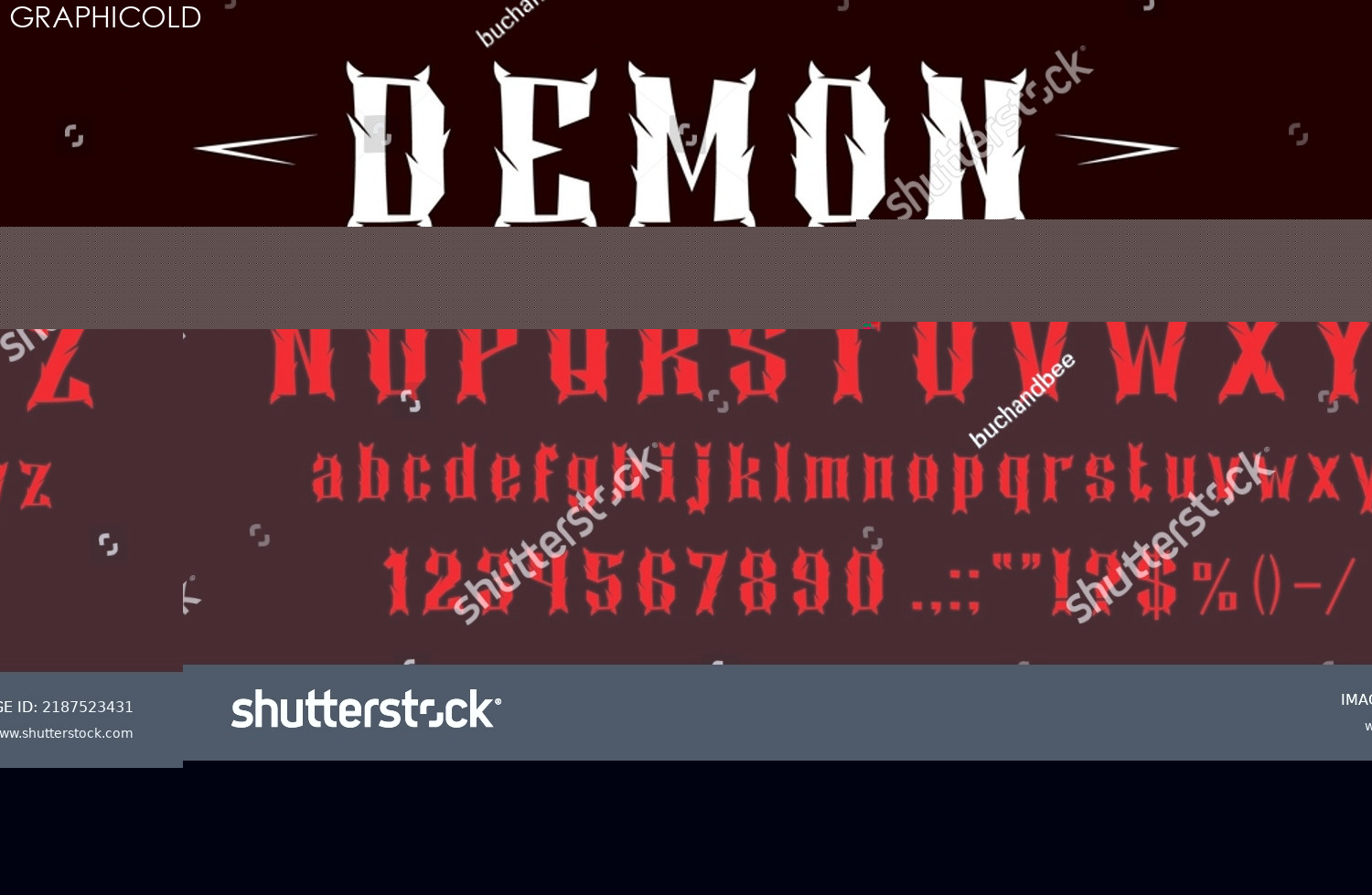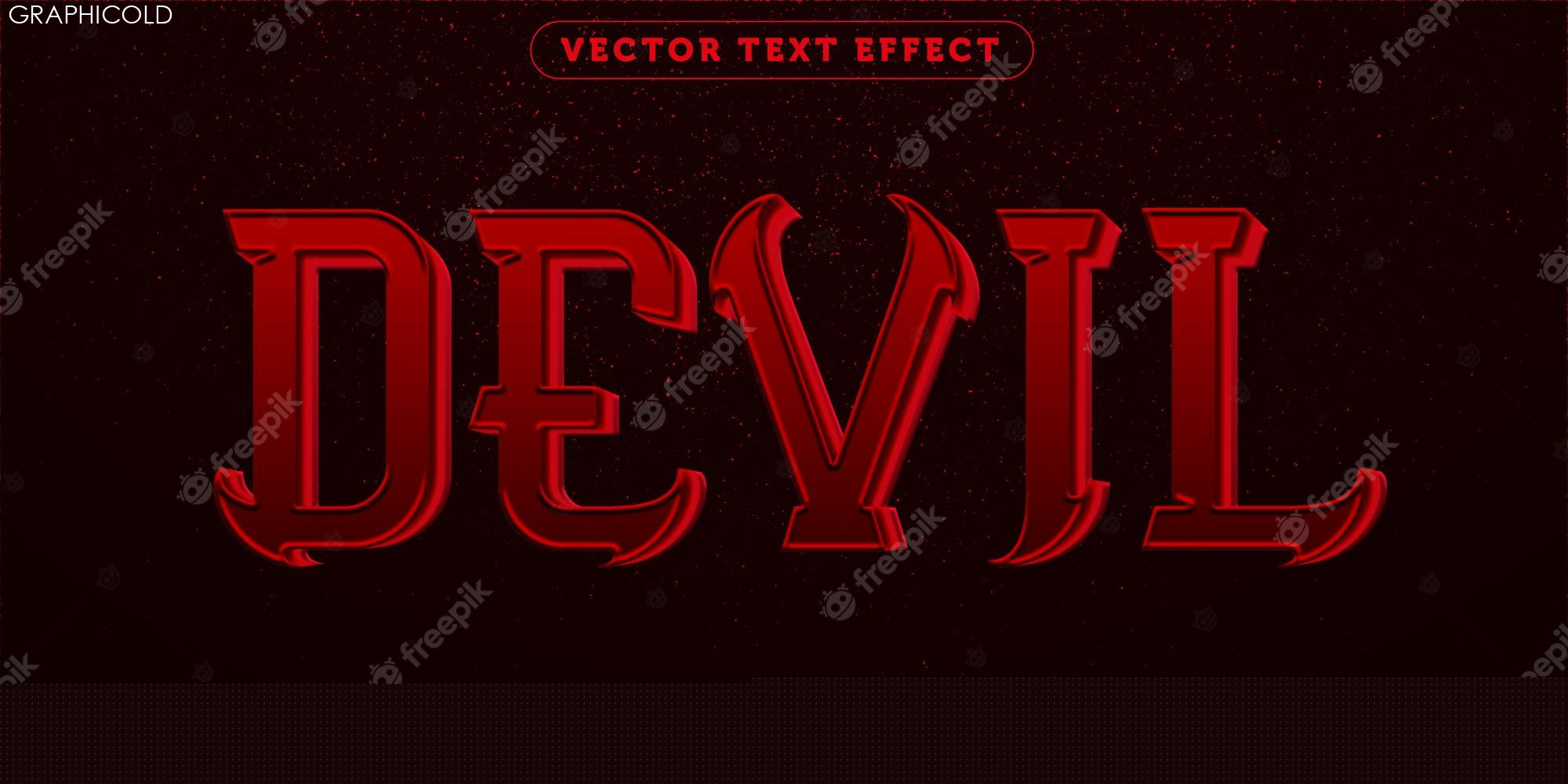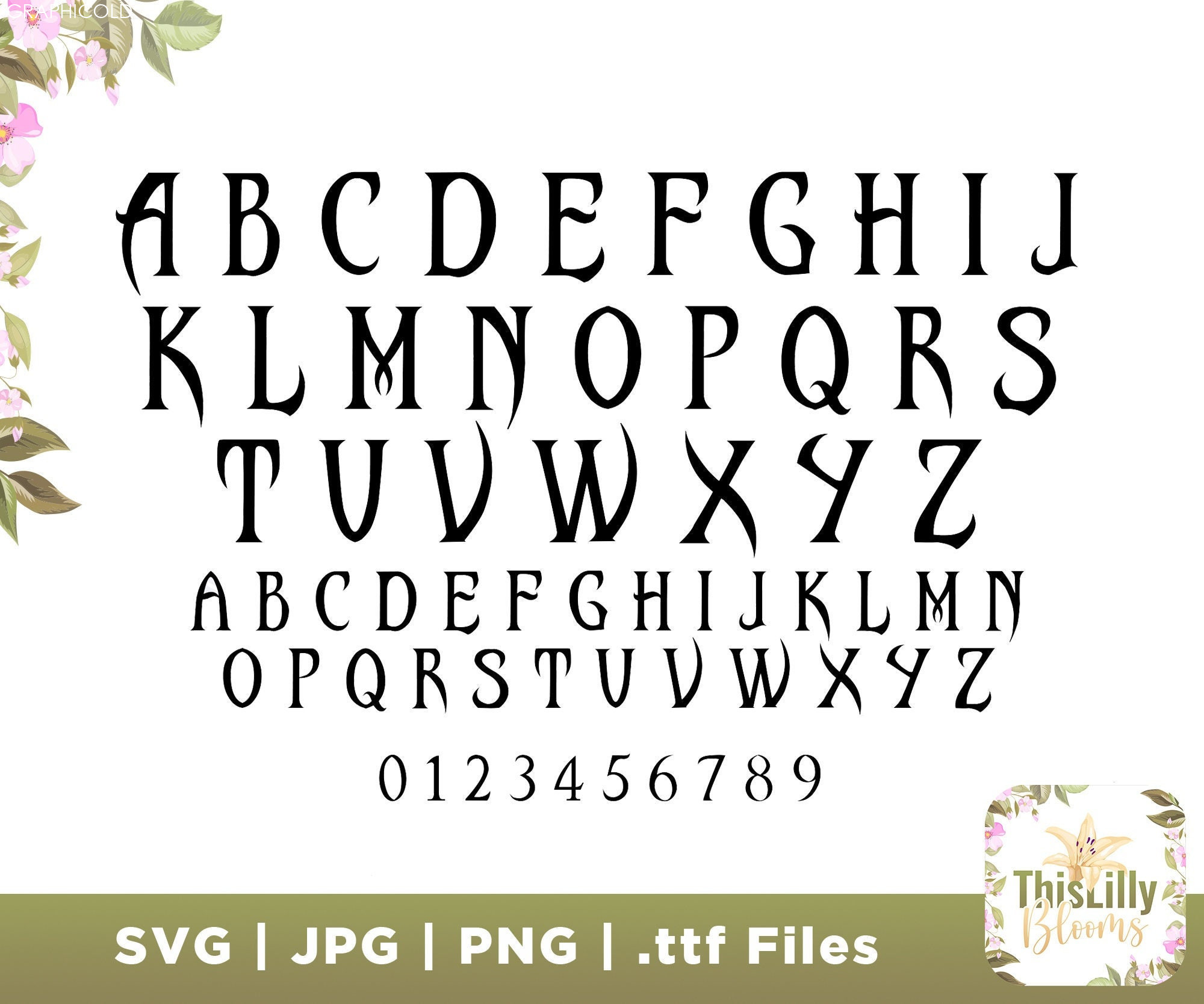
Unleashing The Darkness: Exploring The Dangers Of Evil Fonts
evil font: The Dark Side of Typography
Fonts play a vital role in design and communication. They convey emotions, attitudes, and moods that help people understand the intended message. While some typefaces are cheerful, friendly, and inviting, others are intimidating, aggressive, and even sinister. One such font that has gained infamy in recent years is Evil Font.
Evil Font is a typeface that resembles the handwriting of a demented, psychotic, or demonic individual. Its jagged, irregular strokes, and sharp angles create a sense of chaos and instability. The letters seem to be struggling to break free from the page, as if possessed by some malevolent force. The overall effect is unsettling, disturbing, and even terrifying.
The origins of Evil Font are unclear, but it’s believed to have emerged from the underground world of dark and occult typography. It’s been used in horror movies, heavy metal albums, gothic literature, and other macabre media to enhance the atmosphere of fear, suspense, and dread. Some people even use it in their everyday communication, social media posts, and memes to express their rebellious, edgy, or nihilistic persona.
However, Evil Font is not without its critics. Some designers and typographers consider it a cheap, gimmicky, and overused font that lacks originality, creativity, and professionalism. They argue that it’s a lazy way to evoke emotions and that it can backfire by making the message unclear, confusing, or offensive. They also warn that using such a font can harm the readability, legibility, and accessibility of the text, especially for people with visual impairments.
Moreover, Evil Font has sparked controversy and ethical concerns. Some people argue that it promotes violence, hatred, and intolerance by associating certain fonts with certain personalities or subcultures. They claim that it can perpetuate stereotypes, discrimination, and marginalization, and that it can be misinterpreted or misused by malicious individuals. They also question the morality of using a font that celebrates evil, darkness, and wickedness.
In conclusion, Evil Font is a polarizing and provocative typeface that embodies the dark side of typography. It can evoke strong emotions and reactions, both positive and negative, and it can be a powerful tool for communication and expression. However, it’s important to use it responsibly, ethically, and professionally, and to consider its impact on the audience and the message. As with any font, it’s not inherently good or evil, but it’s the context and the intention that determine its meaning and value.